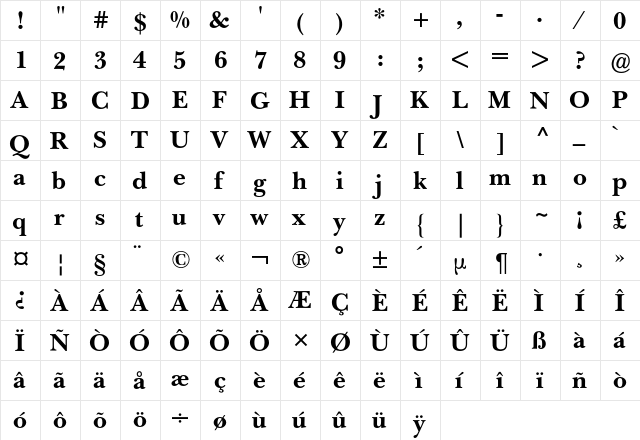
New Baskerville BQ Regular Font Preview
New Baskerville BQ Regular
Design Context for New Baskerville BQ Typeface
New Baskerville BQ offers clean, dependable letterforms without strong stylistic allegiance, making it a practical choice for designers who need flexibility.
Pro Tip: Use New Baskerville BQ in both headline and body roles to test its range before committing to a single application.